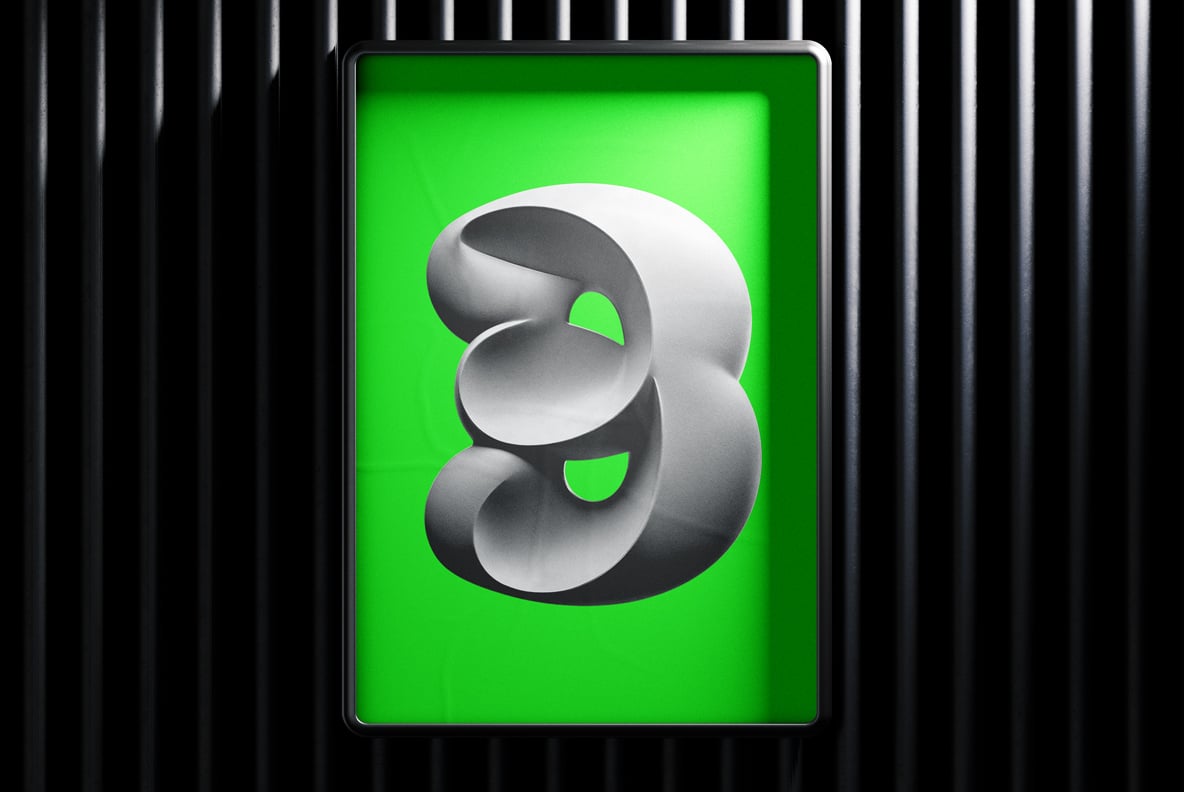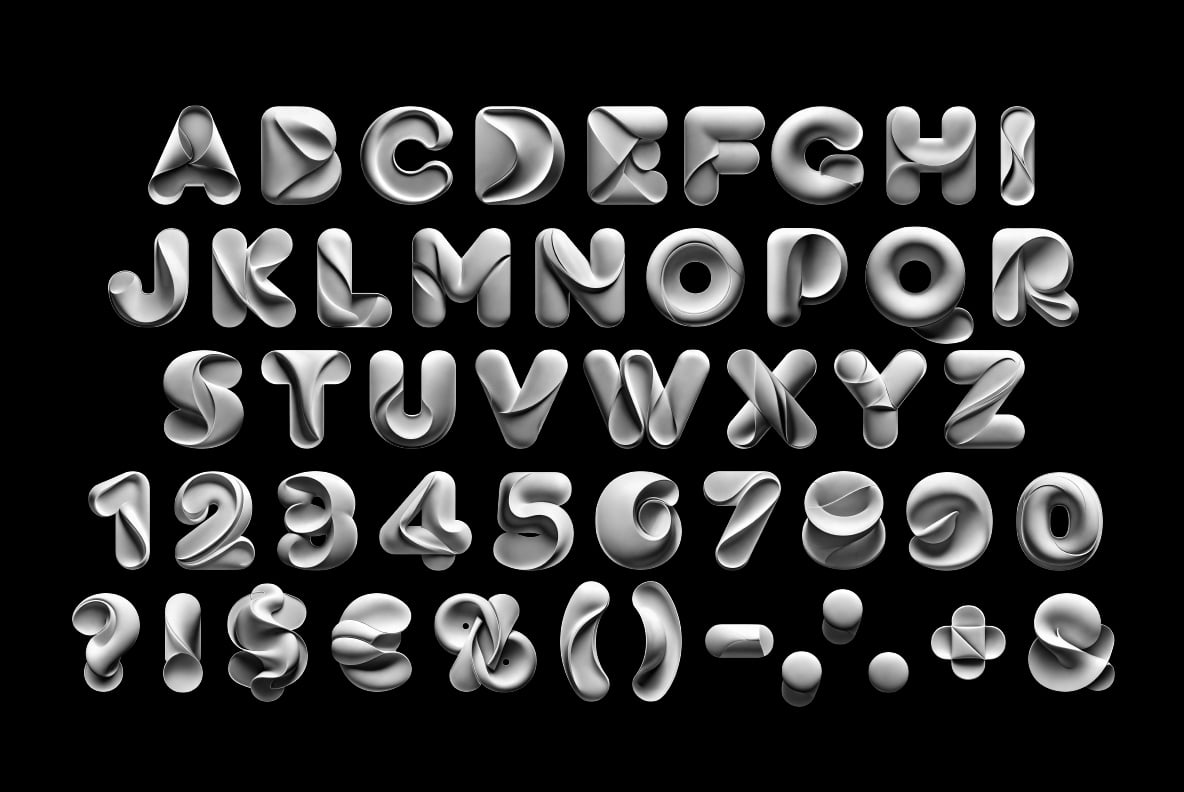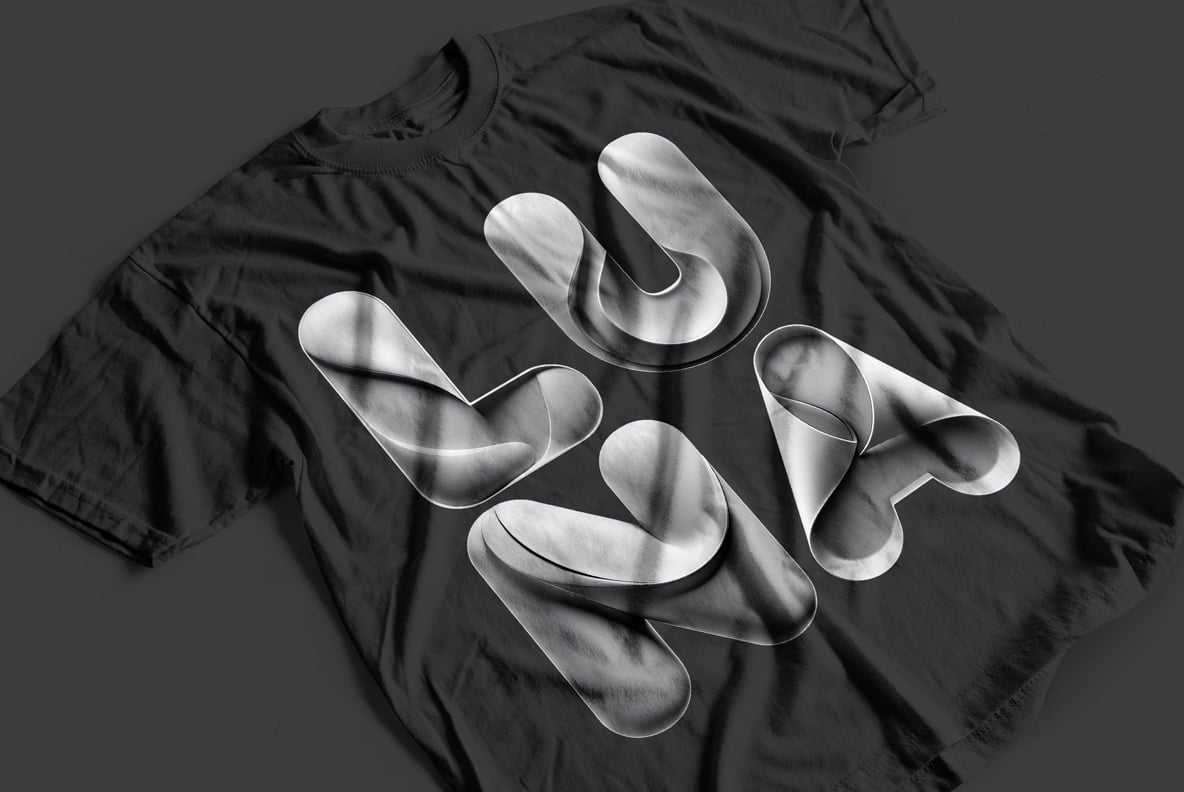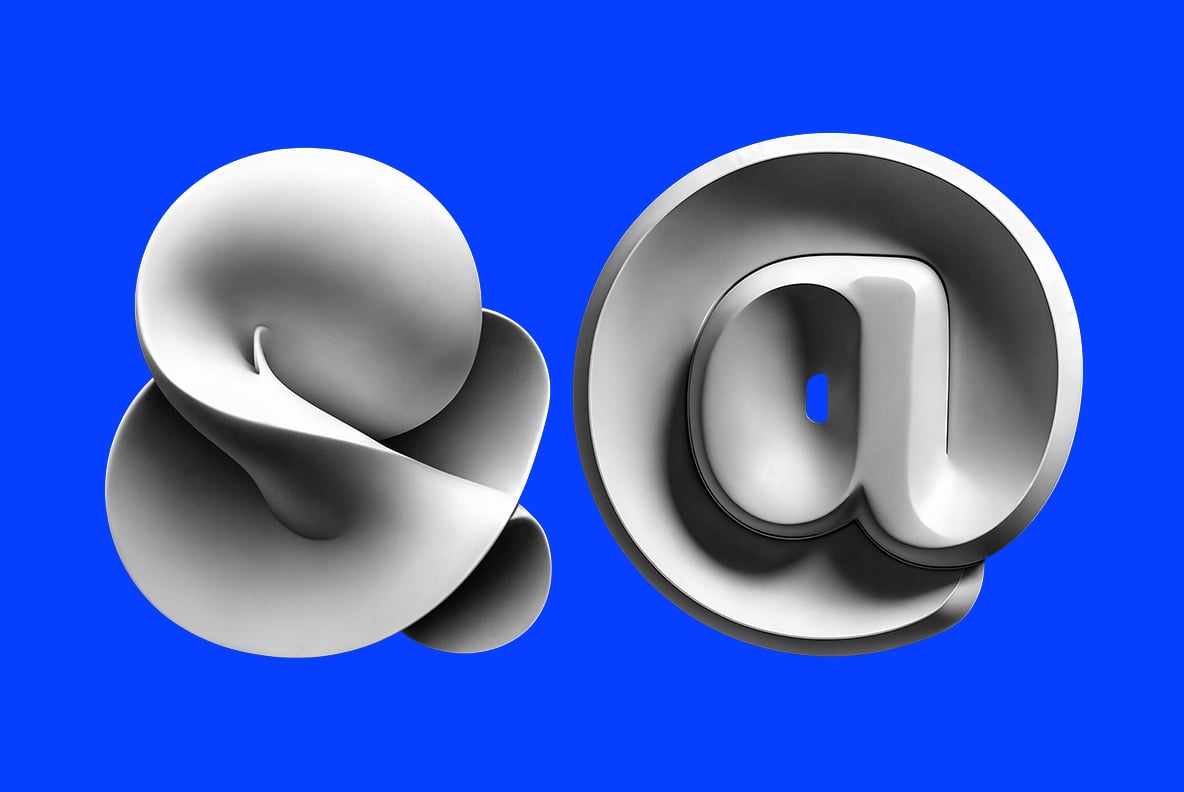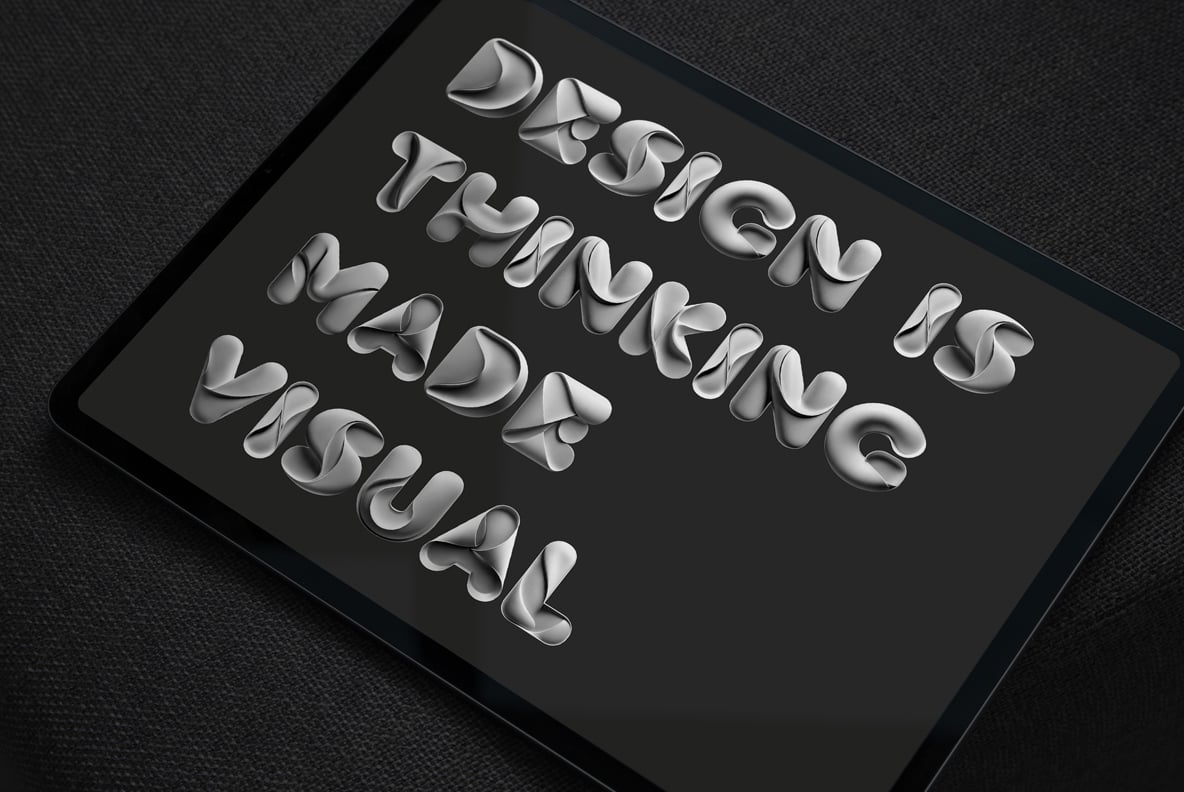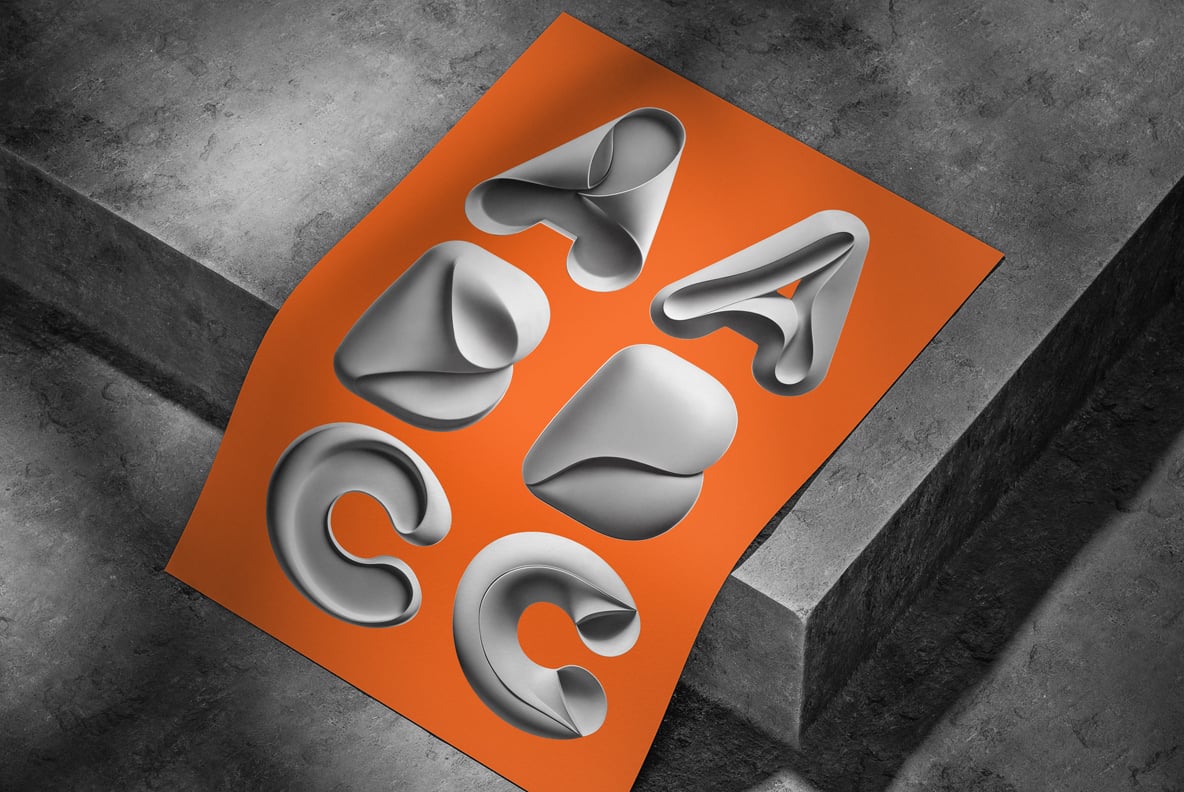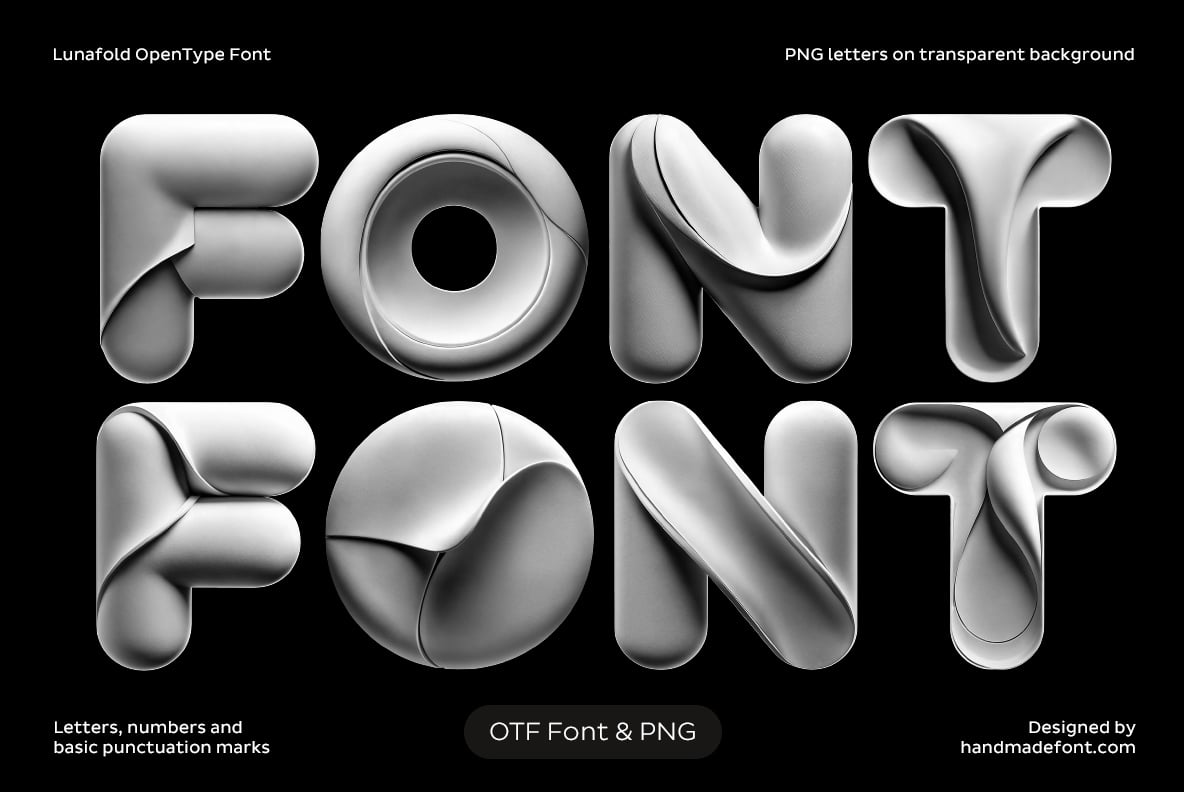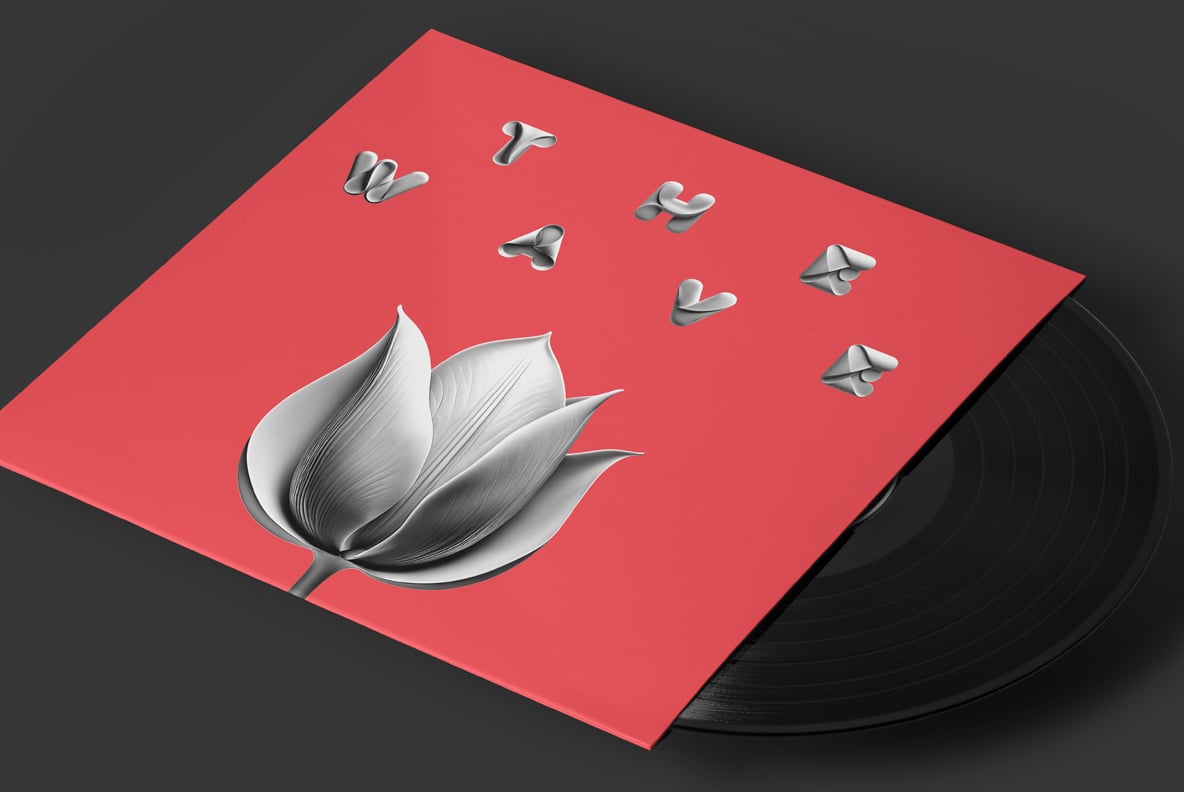
Lunafold Font
Lunafold Font is a futuristic, sculptural typeface that merges soft minimalism with complex, folded forms. Each letter looks as though it has been carefully crafted from smooth metallic sheets, bending and curving with a fluid elegance that evokes modern architecture and high-end industrial design. Its rounded edges, layered folds, and subtle shadows create a dynamic interplay of light and depth, giving the font a three-dimensional, tactile presence. Perfect for luxury branding, editorial design, or experimental creative projects, Lunafold brings a bold yet refined aesthetic. It’s typography that feels alive — sleek, innovative, and undeniably sophisticated.
Others : ! ? - . ' $ € % & # @